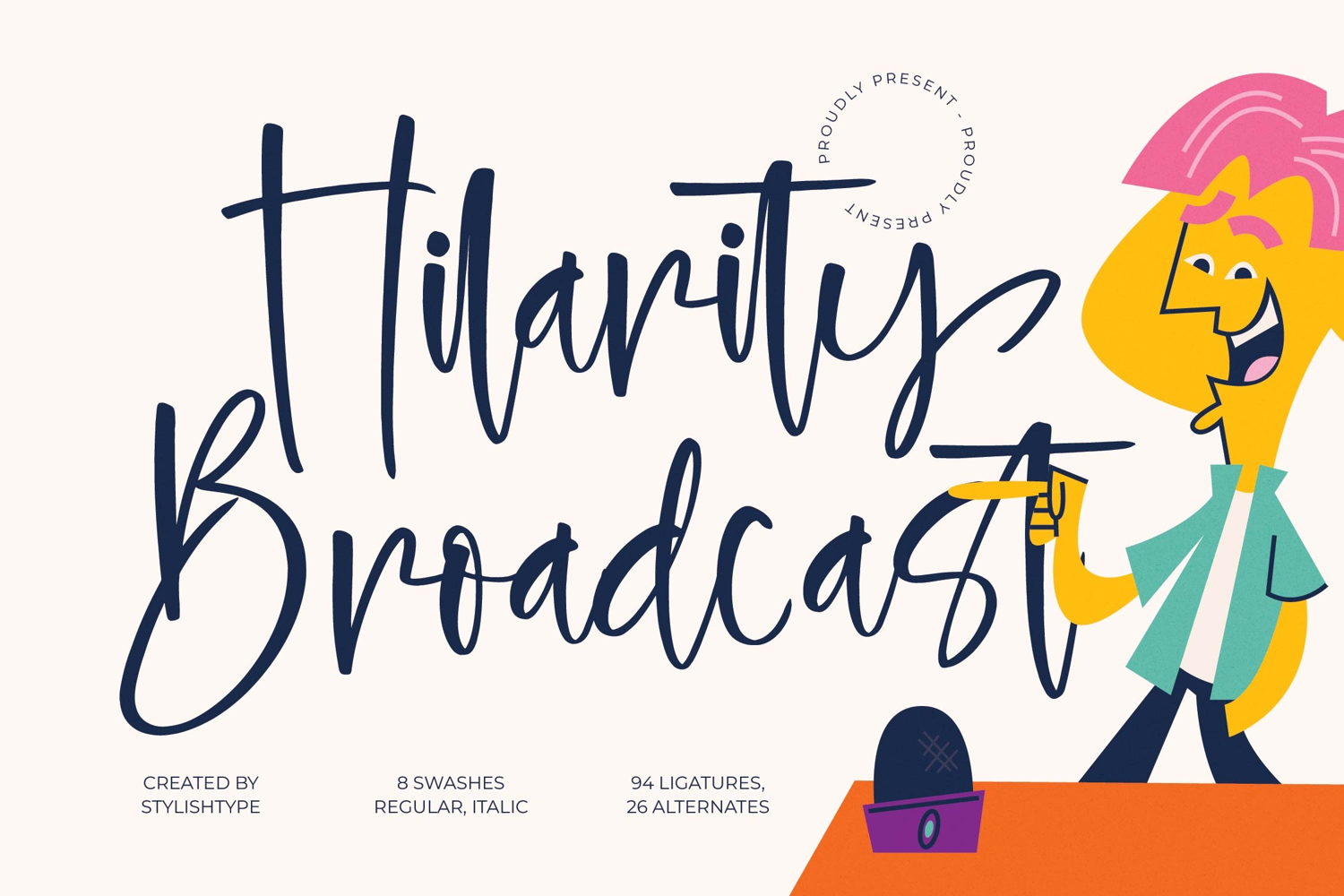
Hilarity Broadcast - Bold Handwritten Script
Hilarity Broadcast
Hilarity Broadcast Italic
Inject instant personality and authentic energy into your designs with Hilarity Broadcast - Bold Handwritten Script. This dynamic typeface captures the spontaneous charm of natural handwriting, delivering maximum impact without sacrificing legibility. Its bold, sweeping strokes and high-contrast styling ensure your message is always front and center, establishing a powerful and memorable visual identity for any project seeking a handwritten flair that resonates with youth and vitality.